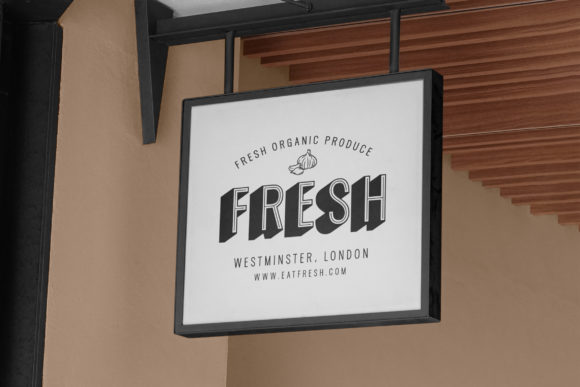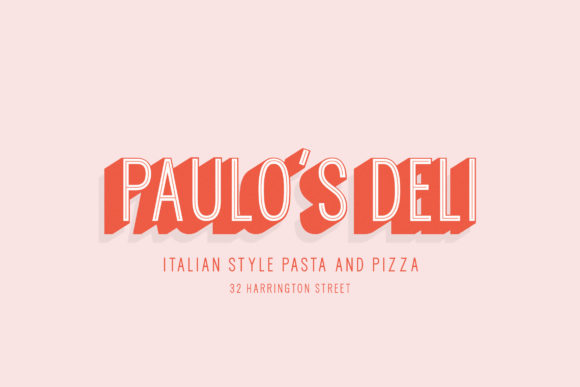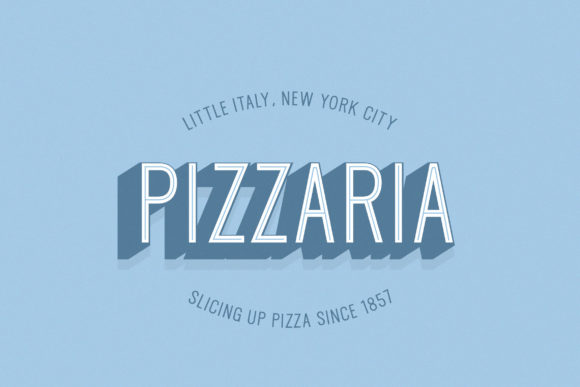
Harrington Family Font
Harrington Family is a tall and vintage styled sans serif font. It can easily be matched to an incredibly large set of projects, so add it to your creative ideas and notice how it makes them stand out!